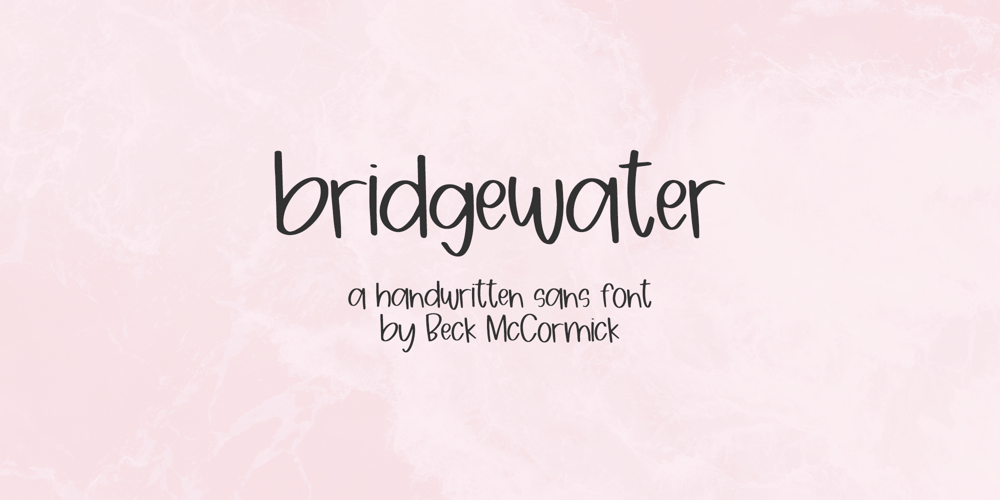
Bridgewater Sans Font Family was designed by Beck McCormick and published by BeckMcCormick. Bridgewater Sans contains 1 styles and family package options. Introducing Bridgewater, an adorable handwritten sans font. Bridgewater is neat & tidy, and would be best for digital planner apps like GoodNotes or using as handwriting practice on an iPad. You can also use it for note-taking apps to make your study notes effortlessly cute, but easy to read. Pawley can also be used for other print design like magazines and flyers or printed marketing materials. This font can also be used for digital marketing materials and social media items!Bridgewater includes:- full upper + lowercase characters- numbers + punctuation- PUA-encodingExtensive Language Support:Western European, Central European, South Eastern European, South American, Oceanian, Vietnamese, EsperantoBridgewater Sans can be used with graphic design programs such as Illustrator or Photoshop, word processing programs like Pages or Word, Design Space, Silhouette, Procreate, Canva Pro, Glowforge, GoodNotes, & more. This font is an installable for desktop & laptop machines, as well as iPads or iPhones. See below for links to help with installation.